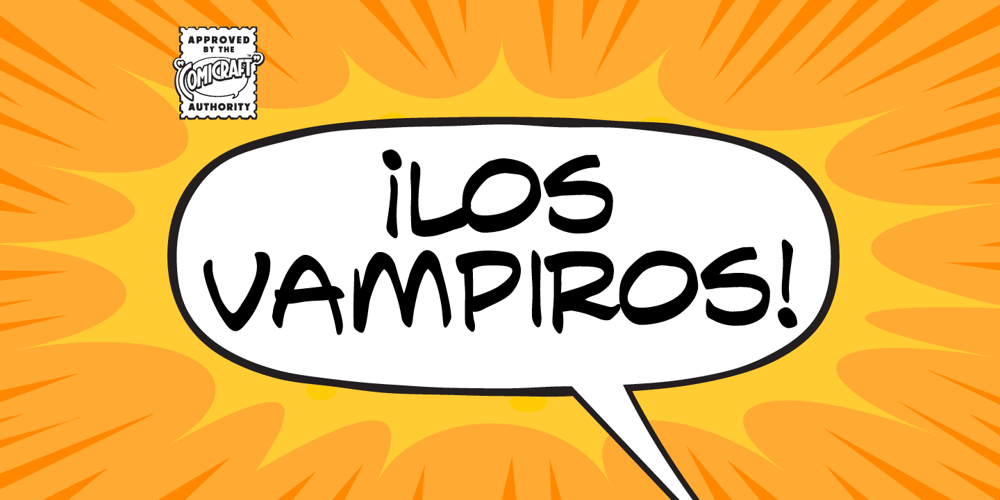
Los Vampiros Font Family was designed by John Roshell and published by Comicraft. Los Vampiros contains 4 styles and family package options. Wooden Stake? Check. Holy Water? Check. Gideon’s Bible? Check. Crucifix? Check. One PC or Mac copy of the Los Vampiros font from the pages of Cliffhanger’s CRIMSON? Check. Slayers shouldn’t leave home without one.